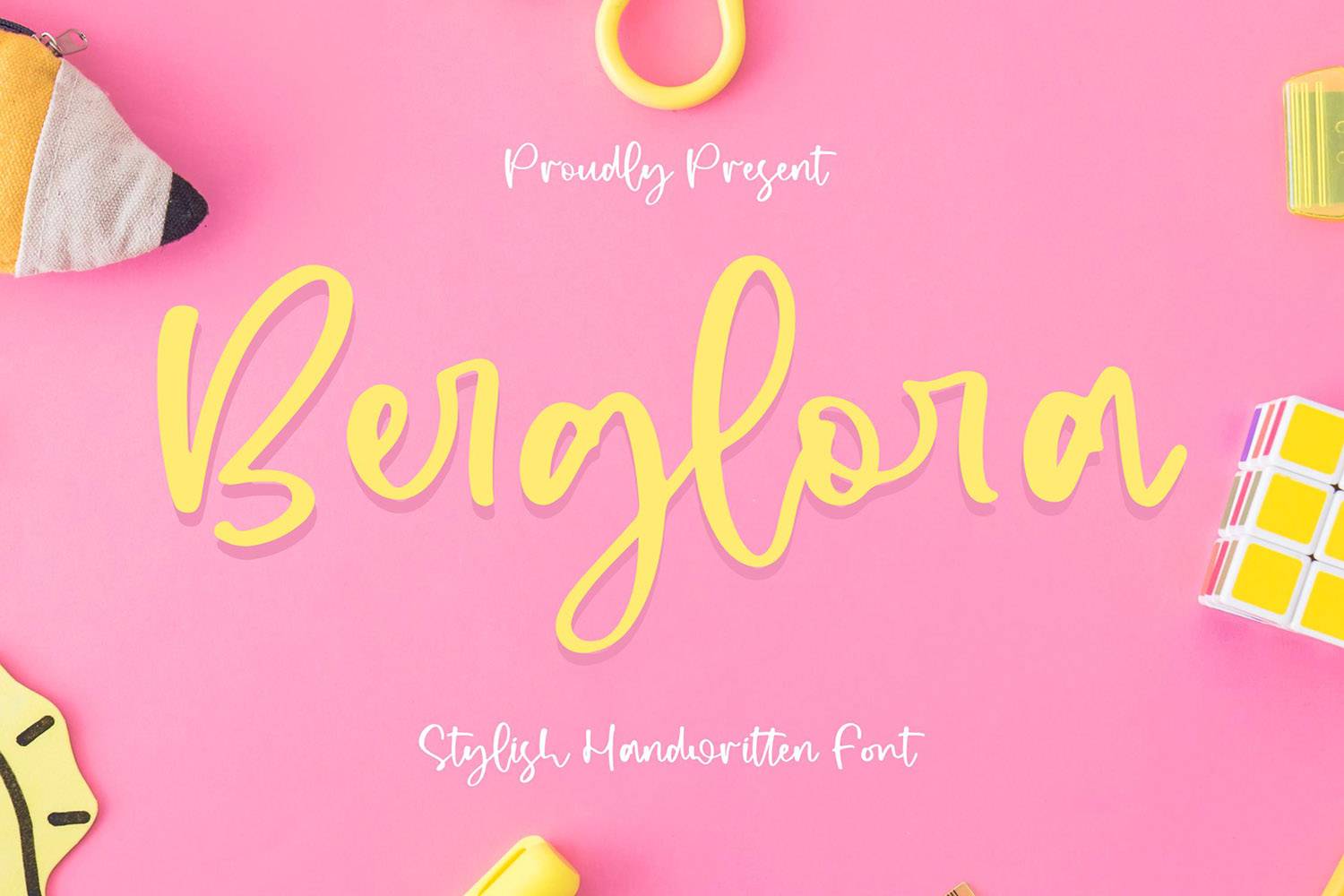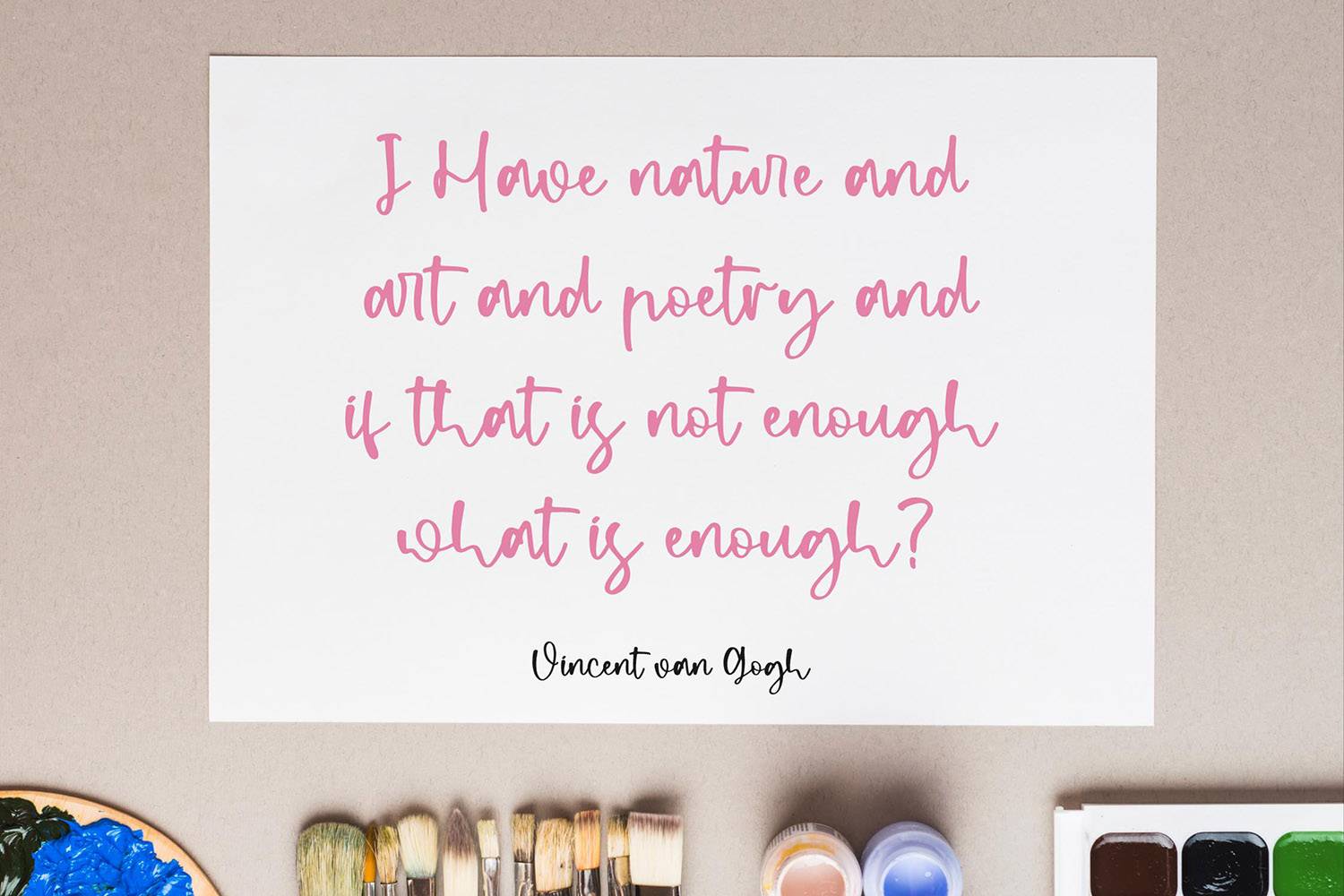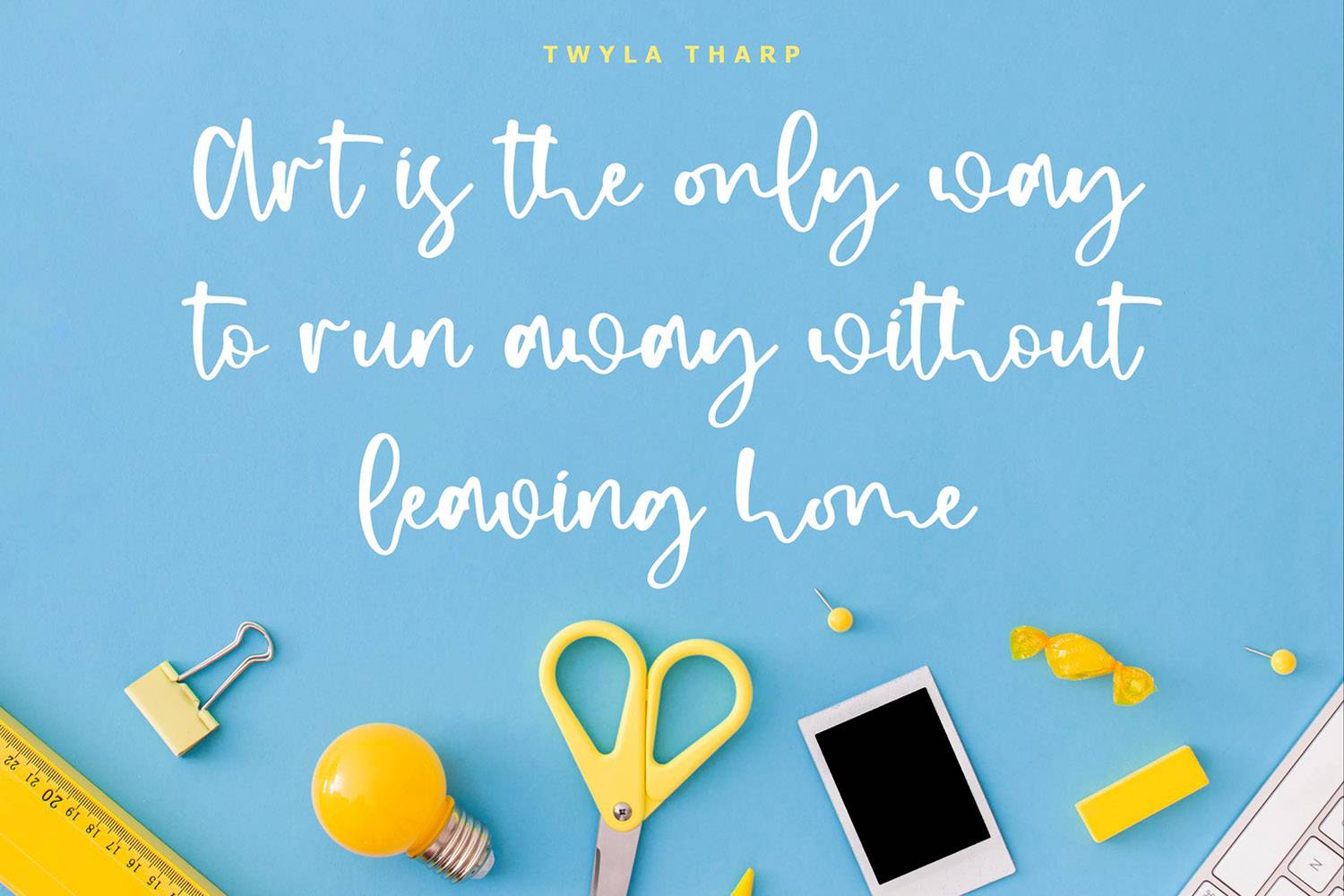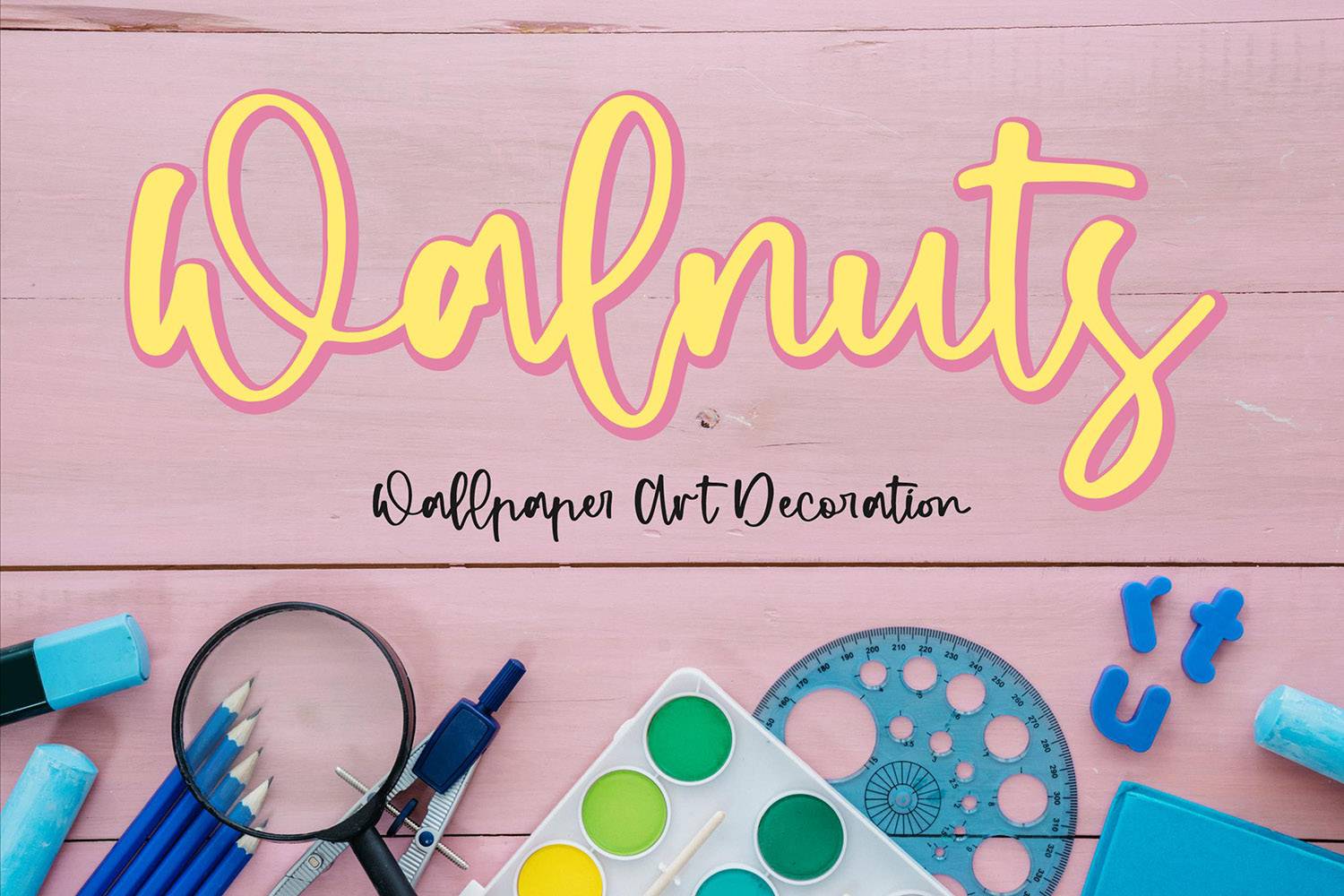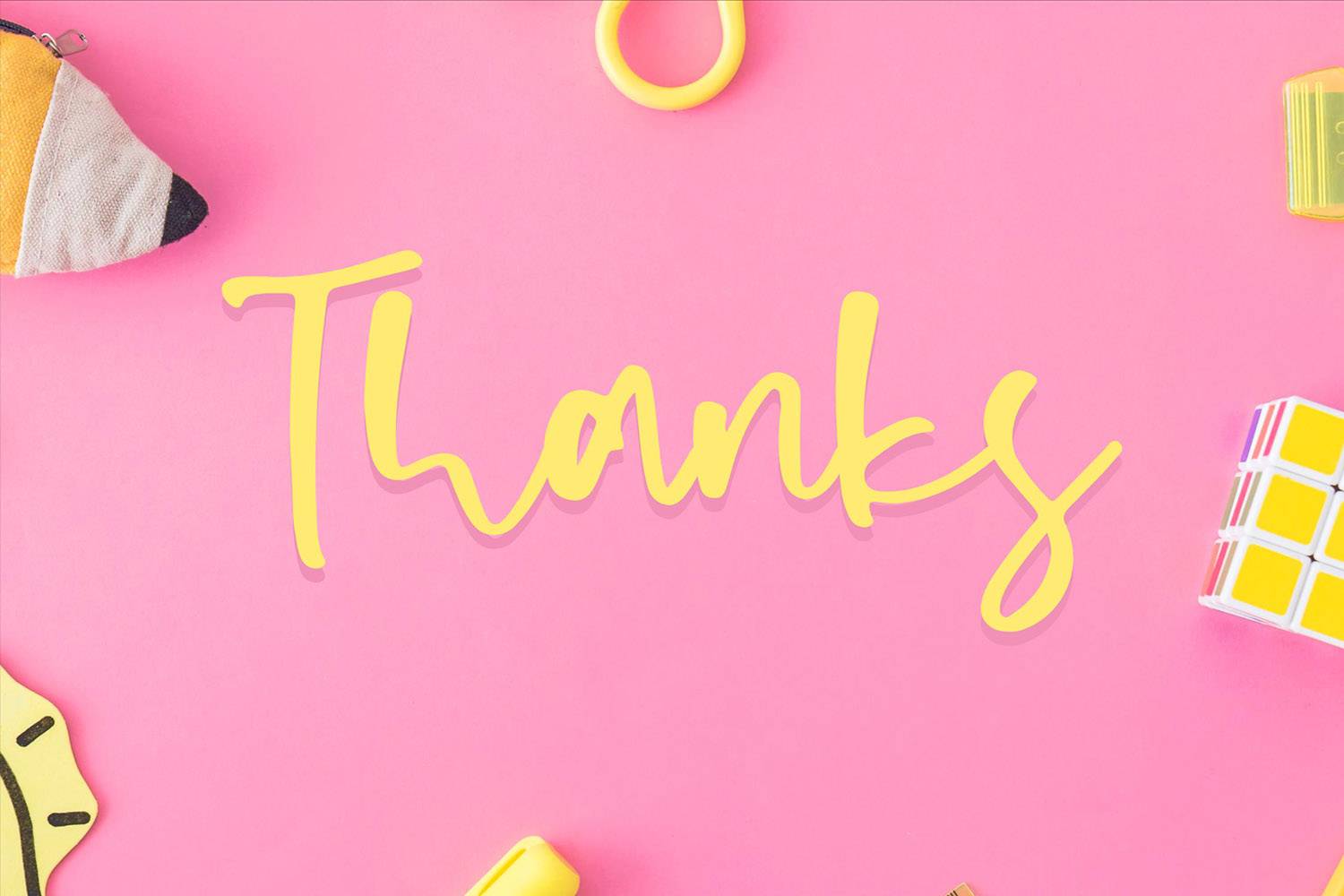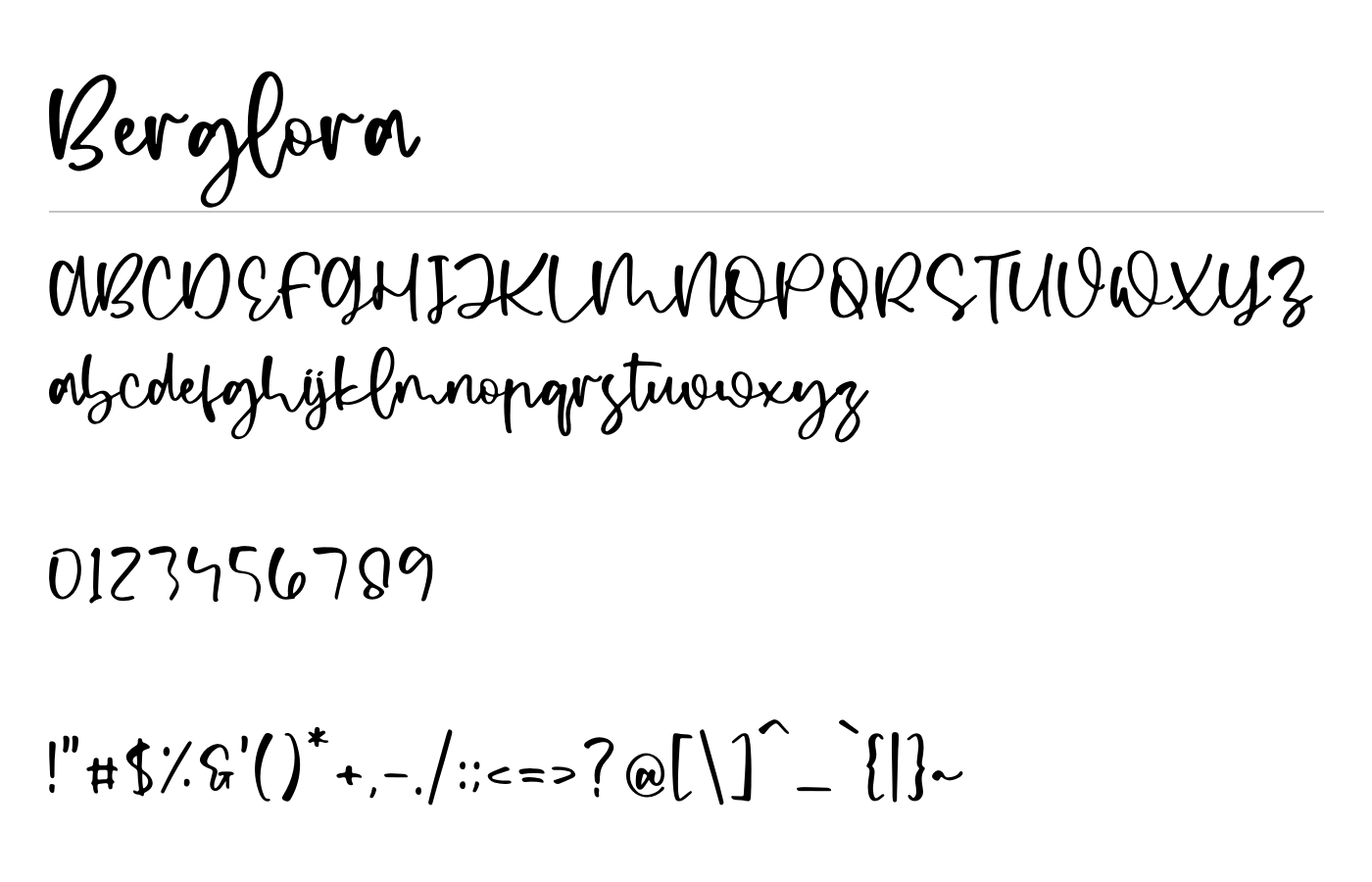
Berglora is a playful and casual handwritten script font with a lively, organic feel. Its letters feature smooth, flowing strokes with moderate weight and a natural, slightly irregular style that adds warmth and personality. Ideal for creative projects, invitations, branding, and social media, Berglora conveys a friendly and approachable mood while maintaining clear readability.
Berglora Font
About Berglora Font